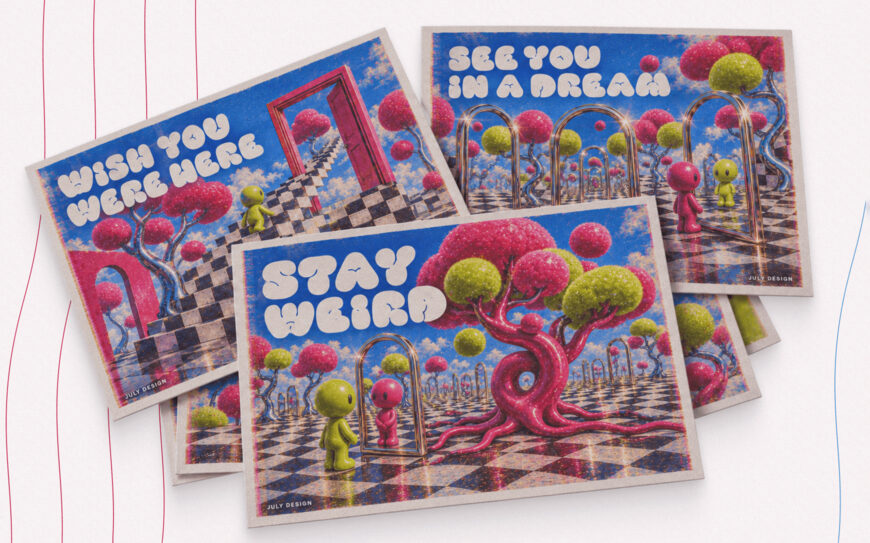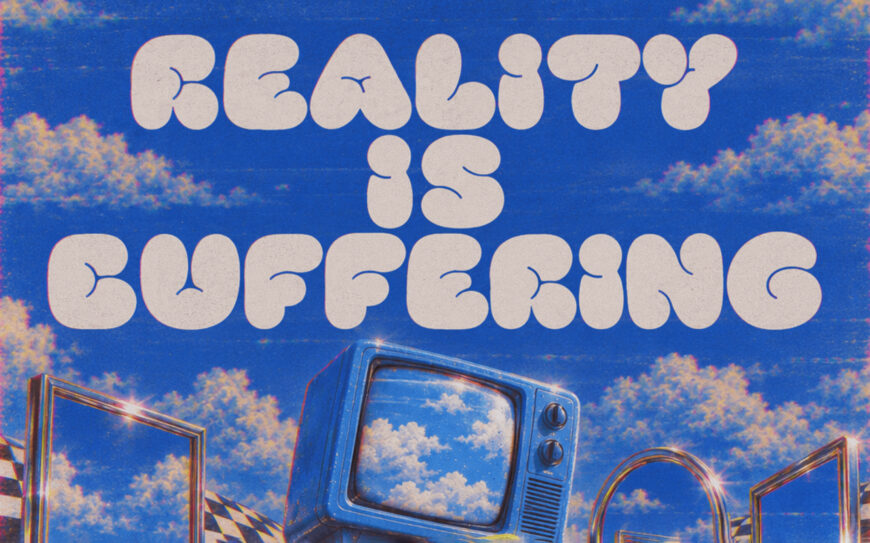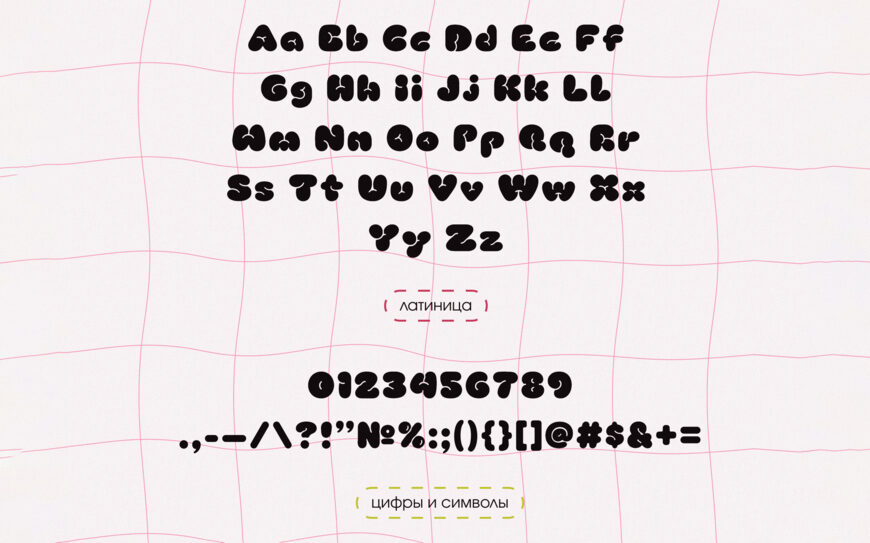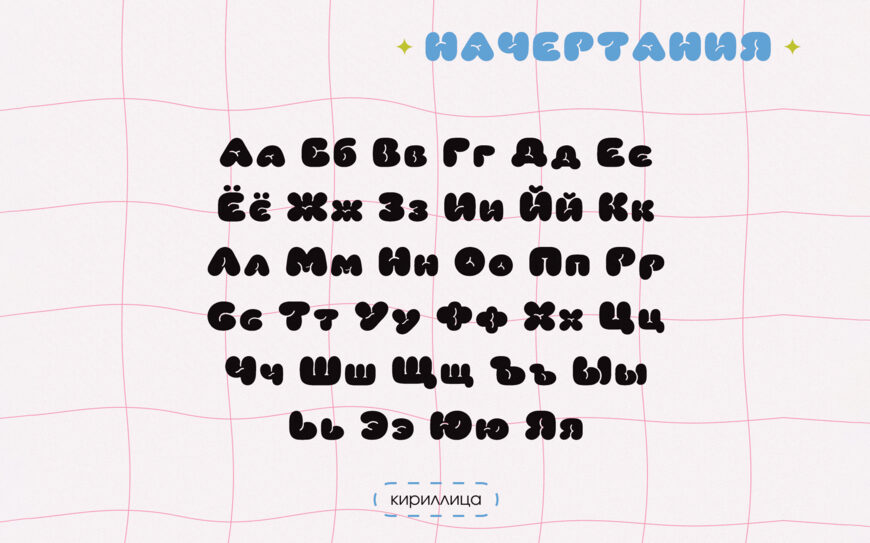
July Bubble is a decorative display font with plump, rounded letterforms reminiscent of bubblegum bubbles. Perfect for headlines, posters, packaging, logos, and stickers, it fits a range of styles—from playful designs to surreal dreamcore and retro graphics.
Designed by: Julia Sorokina